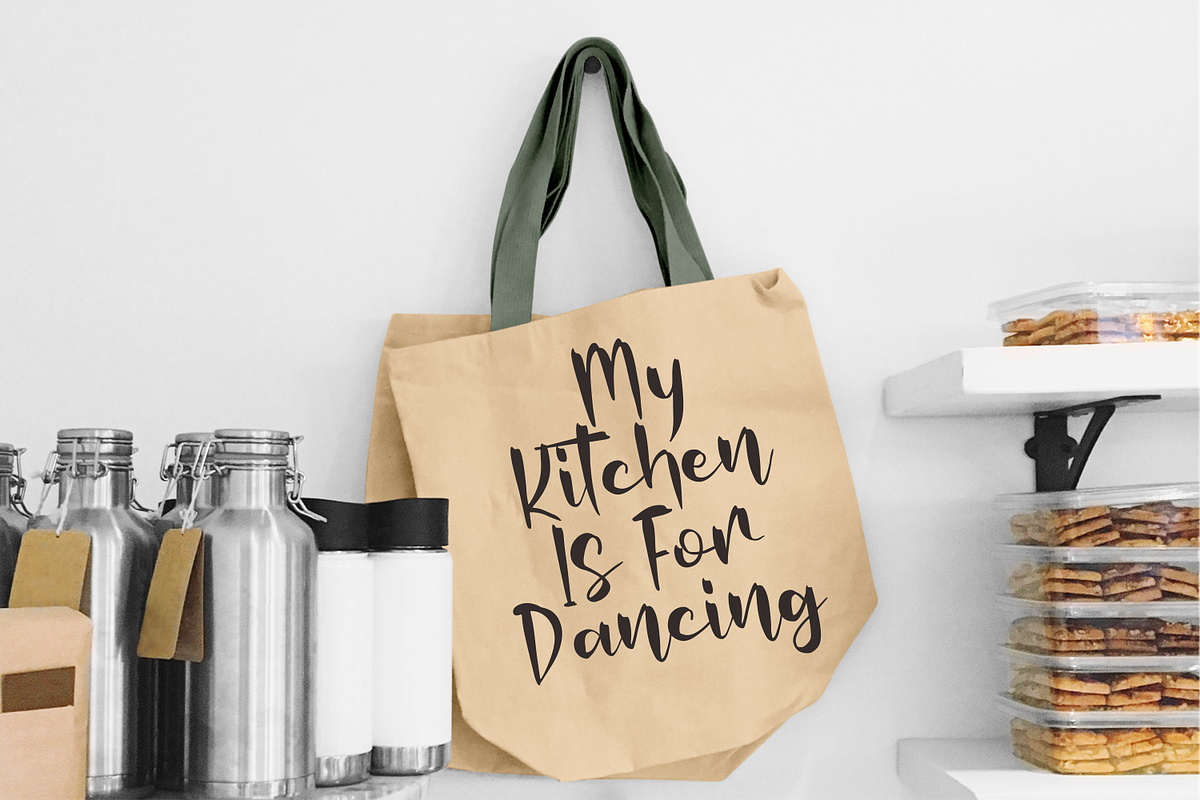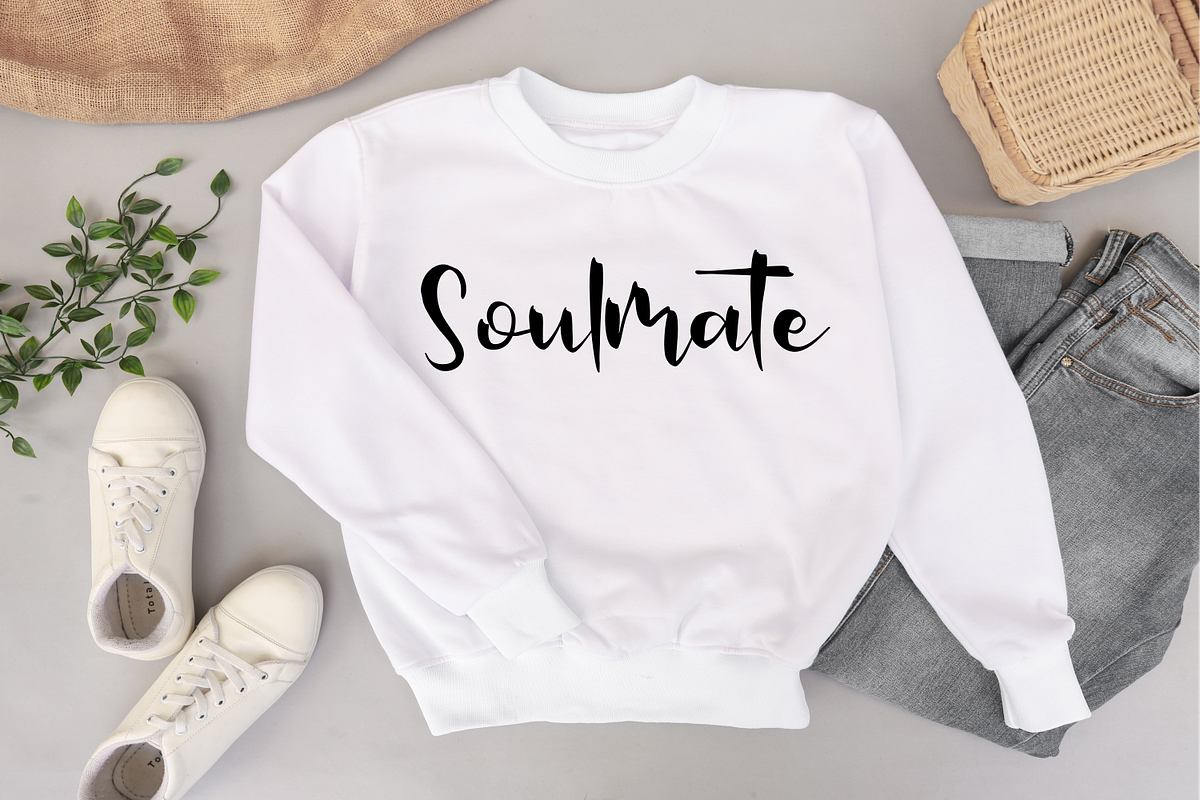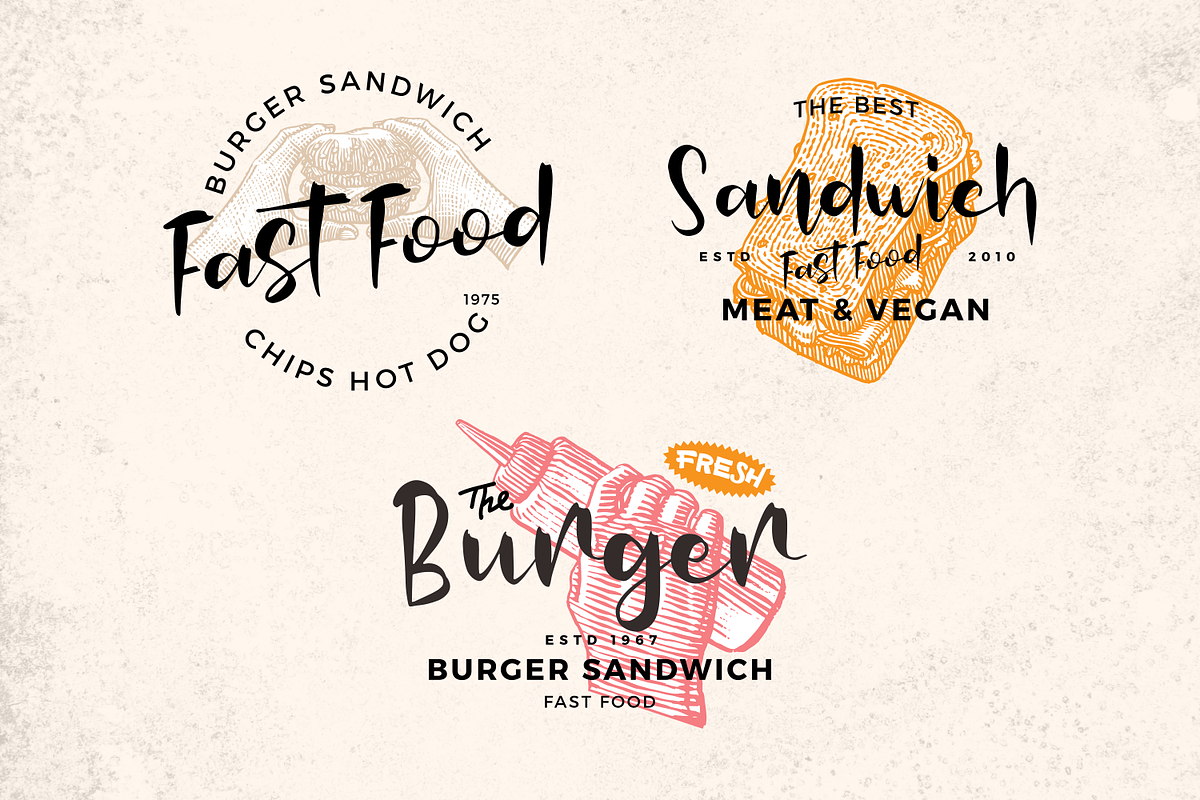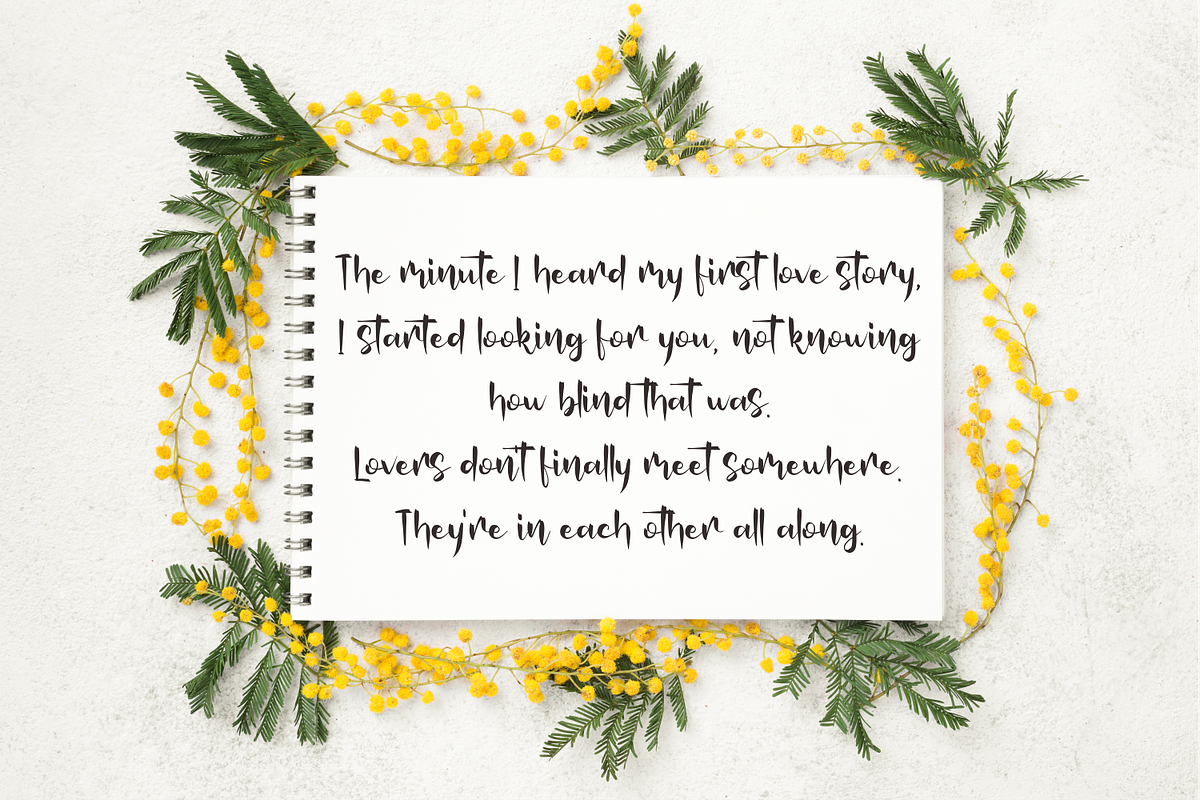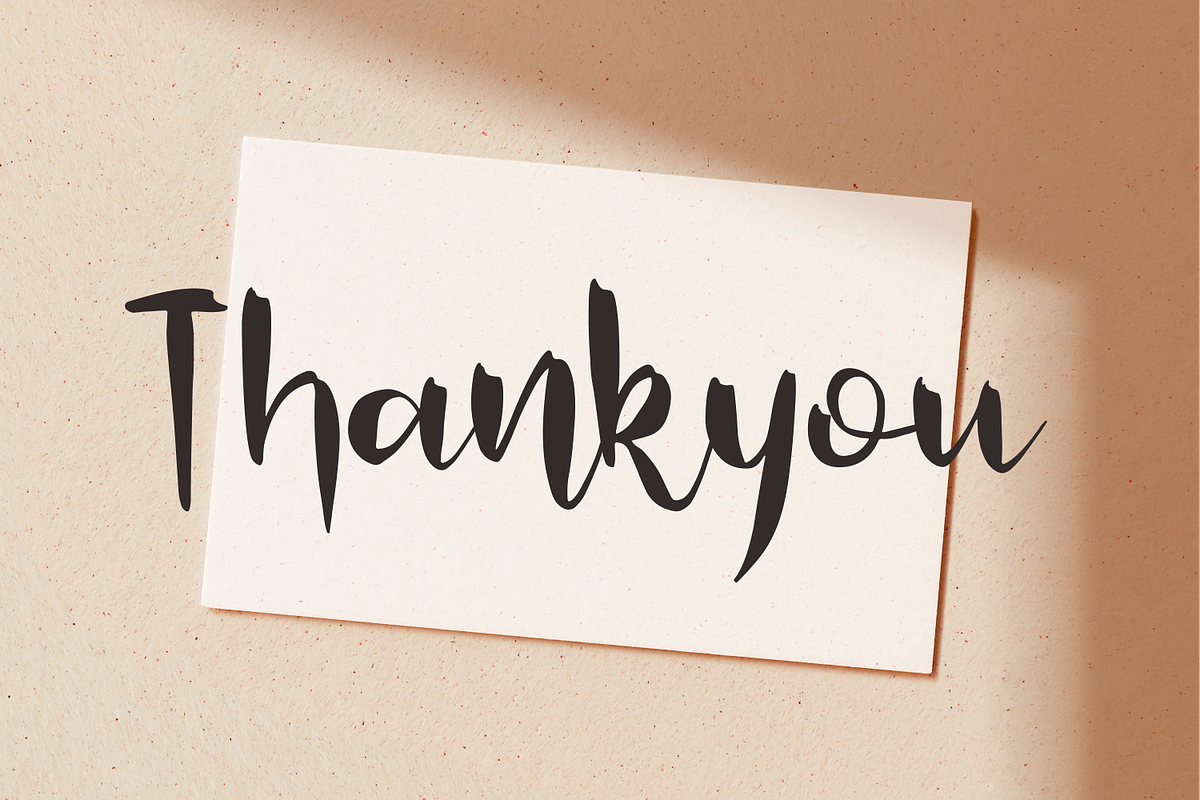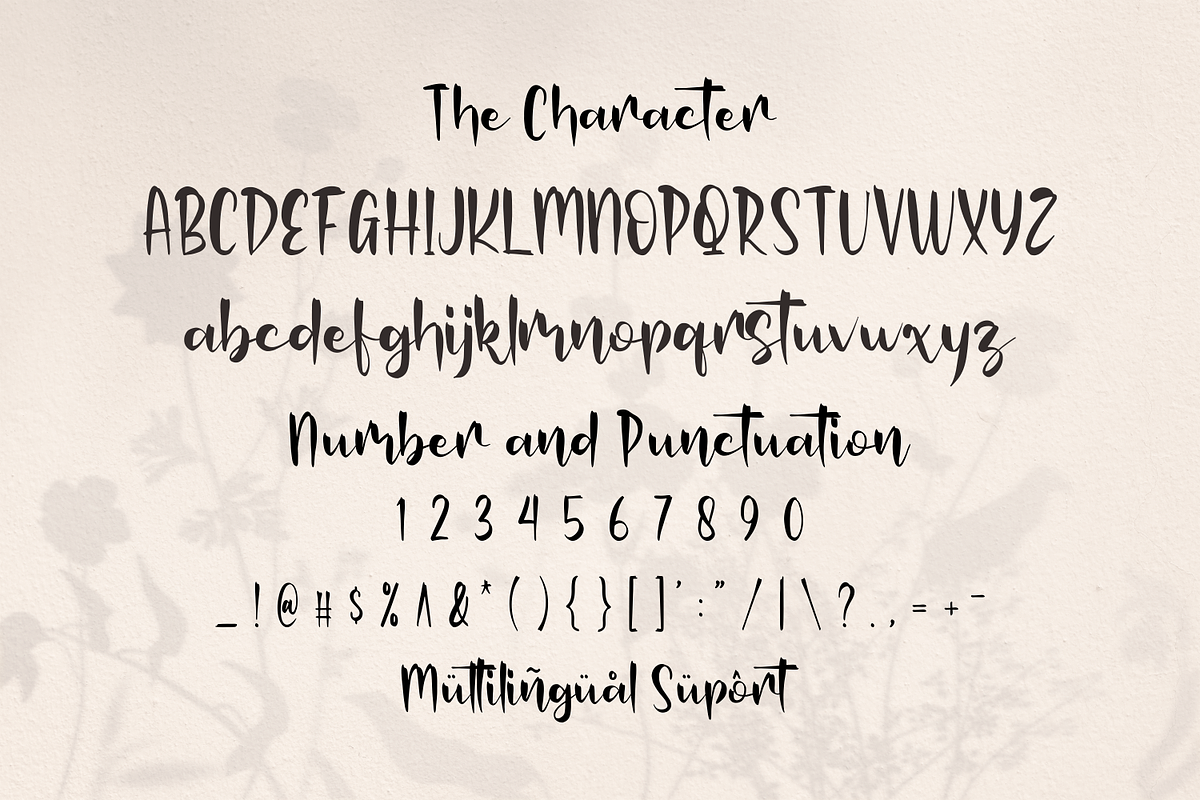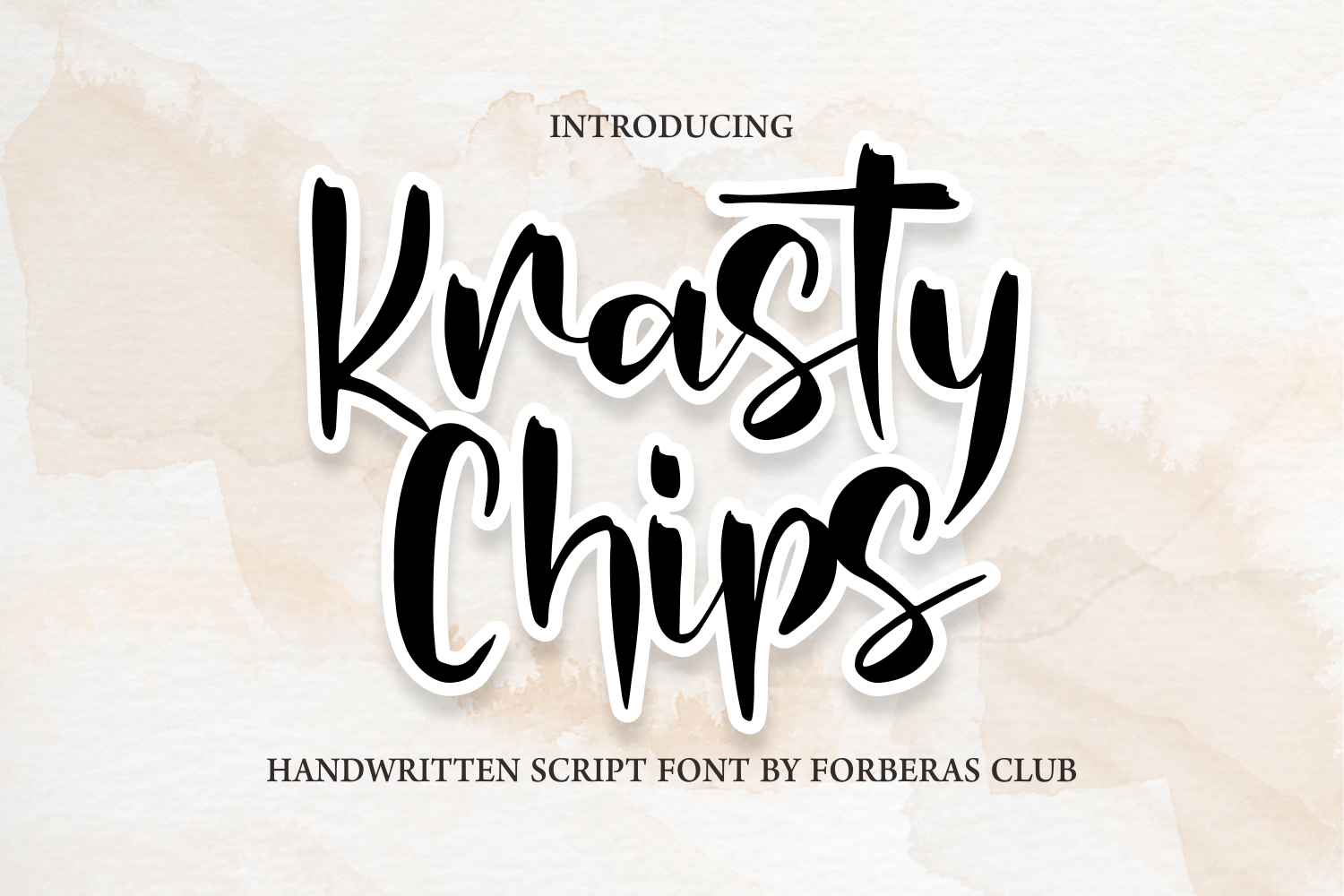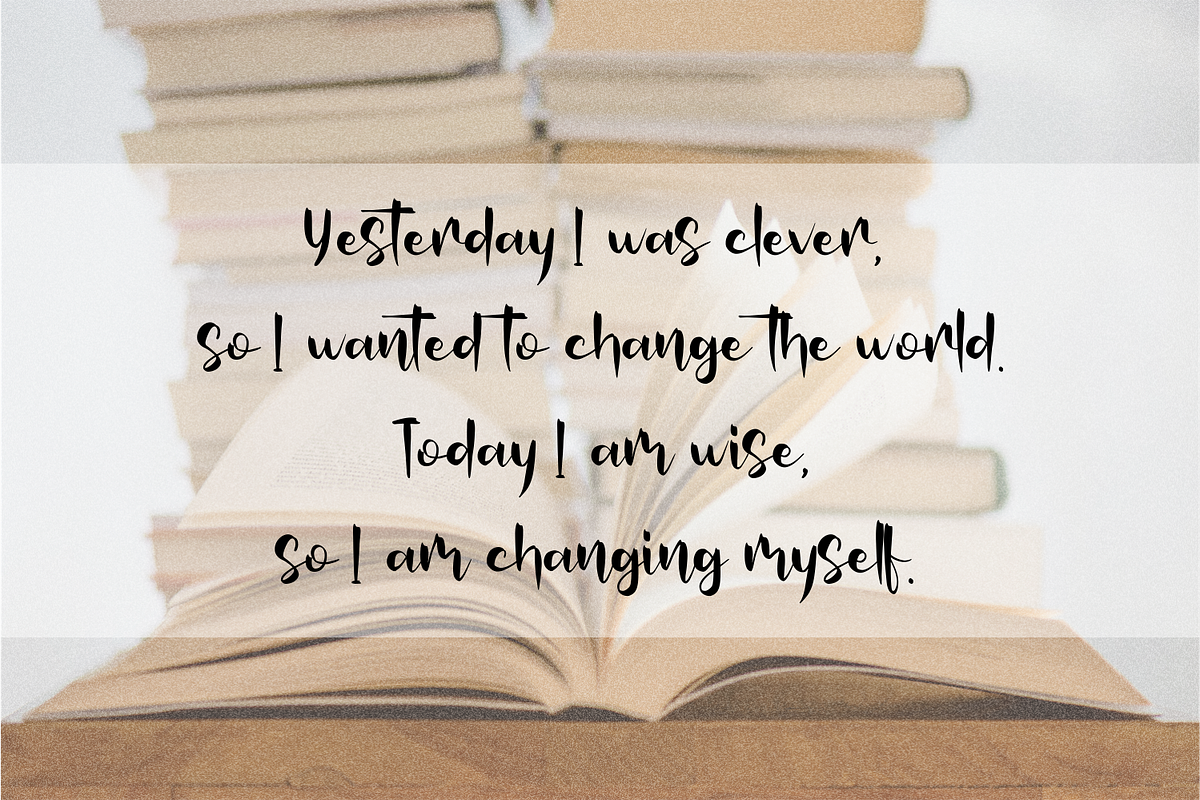
Krasty Chips | Handwritten Font
Introducing Krasty Chips by Forberas
Modern and beautiful handwritten script font! Great for wedding greeting cards, logos, branding materials, Invitation, business cards, quotes, posters, Cricut artwork and more!